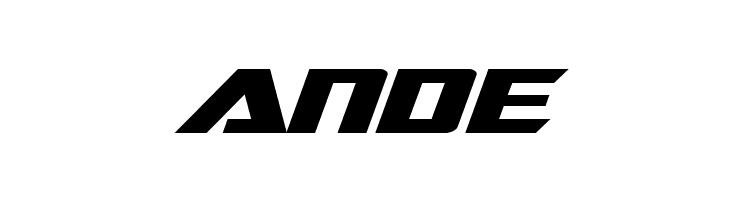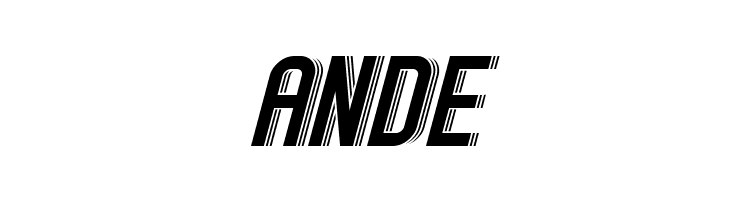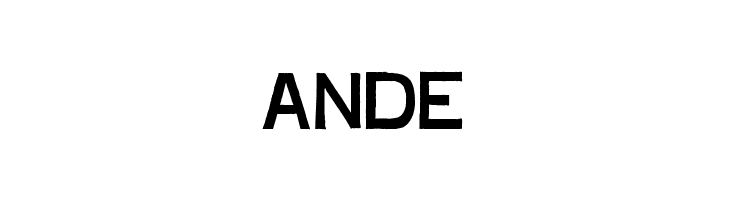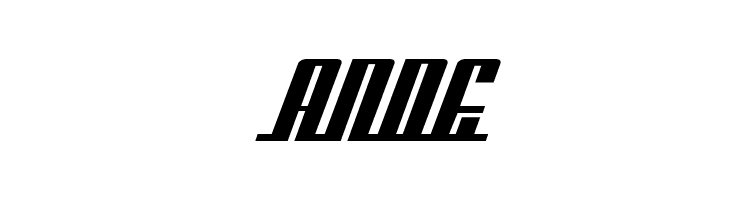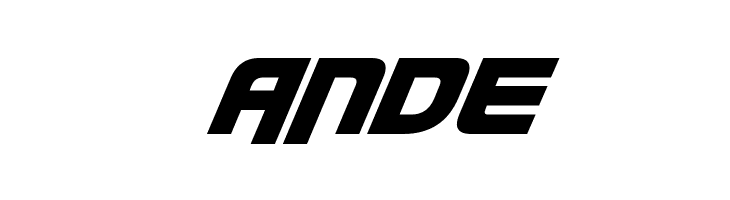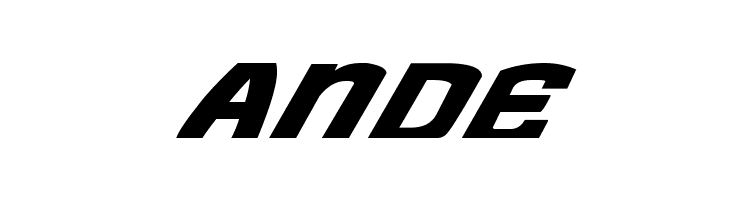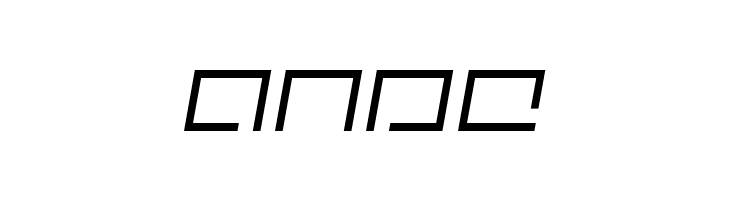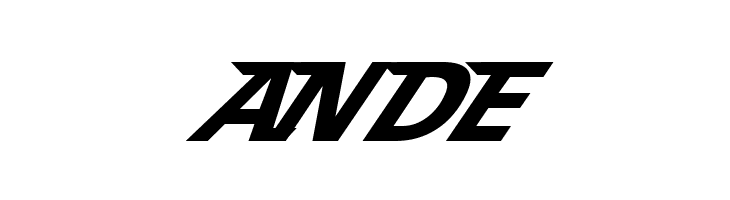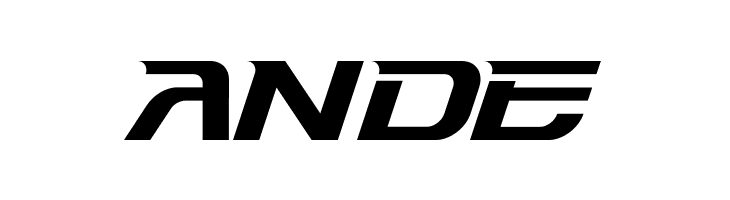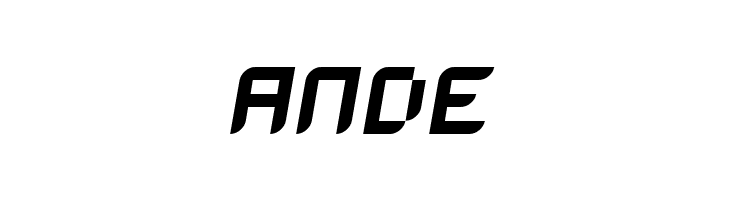
A futuristic, italicized font with angular shapes and extended width for a bold, dynamic look.
A bold, vintage-style font with strong, uniform strokes and decorative numbers.
A bold, italicized font with elongated, narrow characters and a dynamic, modern style.
A bold, extended font with a dynamic slant and sharp angles.
A bold, italicized font with a dynamic and modern style.
A modern, angular italic font with a mechanical and futuristic design.
A bold, italic font with a dynamic and modern style.
A bold, oblique font with a modern and dynamic style.
A bold, italicized font with angular, geometric characters.
A bold, italic font with a dynamic and modern style.
A bold, italicized font with sharp angles and a dynamic presence.
A bold, expanded, and italic font with a modern, dynamic style.
A modern oblique font with a dynamic and uniform style.
A sleek, modern font with a futuristic and italicized design.
A sleek, italic font with a futuristic and dynamic design.
A sleek, modern font with geometric lines and a futuristic aesthetic.
A sleek, modern, and condensed font with a futuristic aesthetic.
A futuristic italic font with sharp, angular lines and a dynamic, modern style.
A futuristic, expanded italic font with medium contrast and a sleek, modern style.
A bold, condensed, and italicized font with a futuristic and angular design.
A bold, angular font with a futuristic and sporty aesthetic.
A sleek, modern, condensed italic font with high contrast and dynamic style.
A sleek, italicized font with a futuristic and dynamic design.
A modern, italicized font with a sleek and dynamic appearance.
A sleek, italicized font with a futuristic and dynamic design.
A bold, italic, geometric font with a futuristic and dynamic style.
A modern, italic font with geometric precision and a dynamic, futuristic style.
A sleek, italicized font with a futuristic and dynamic design.
A bold, italic font with a dynamic, futuristic style.
A bold, italicized font with a futuristic and sporty design.